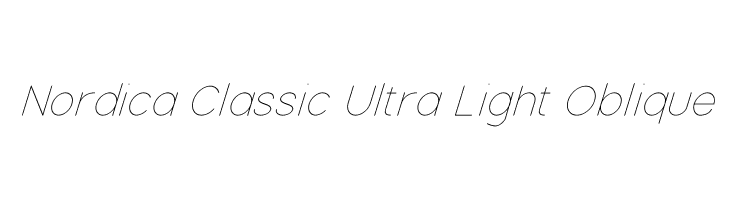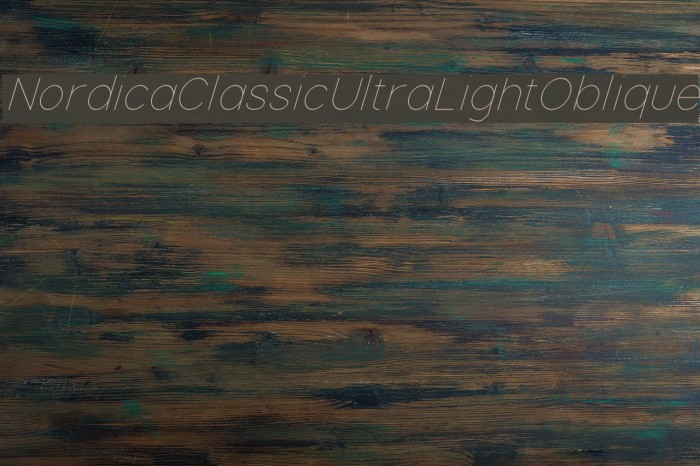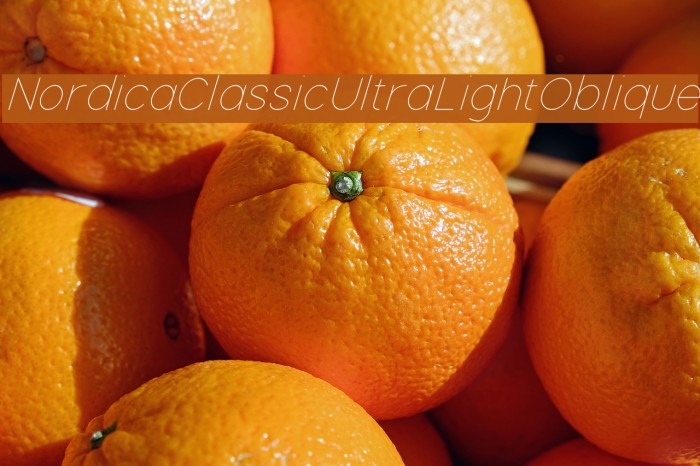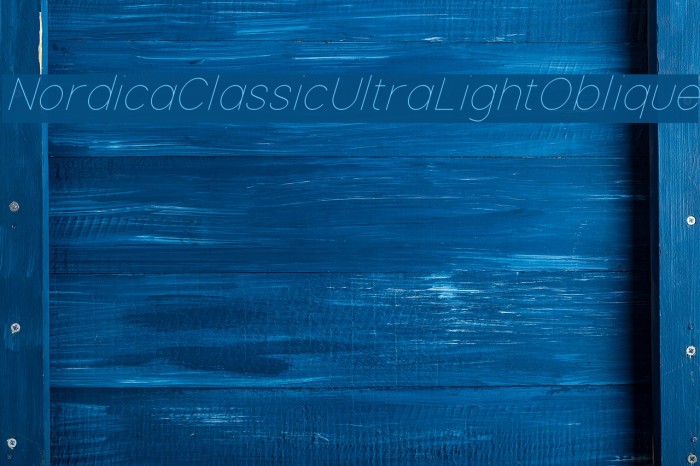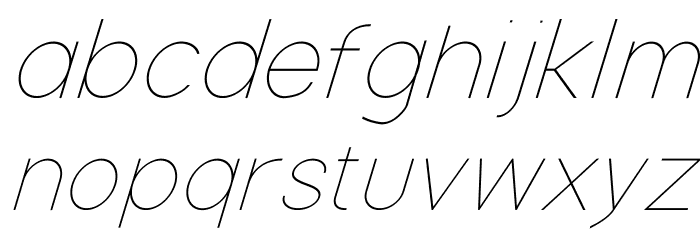
Nordica Classic Ultra Light Oblique Font
This font features a sleek, ultra-light design with an oblique style, giving it a modern and sophisticated appearance. The characters are elegantly elongated with a subtle slant, creating a sense of motion and fluidity. The thin strokes and minimalistic approach make it ideal for contemporary design projects. Its clean lines and airy spacing provide a refined and polished look, suitable for high-end branding and editorial use. The font maintains a consistent stroke width throughout, enhancing its readability while preserving its delicate aesthetic.
An ultra-light, oblique font with a modern and sophisticated style.
• Proposed Projects: Ideal for luxury branding, fashion magazines, minimalist design projects, and elegant invitations.
• Category: Sans-Serif
• Bold: No
• Italic: Yes
• Weight: Light
• Width: Normal
• Character Spacing: Wide
• Contrast: Low
• Overall Style: Modern
• Use Case: Headlines, Editorials, Branding